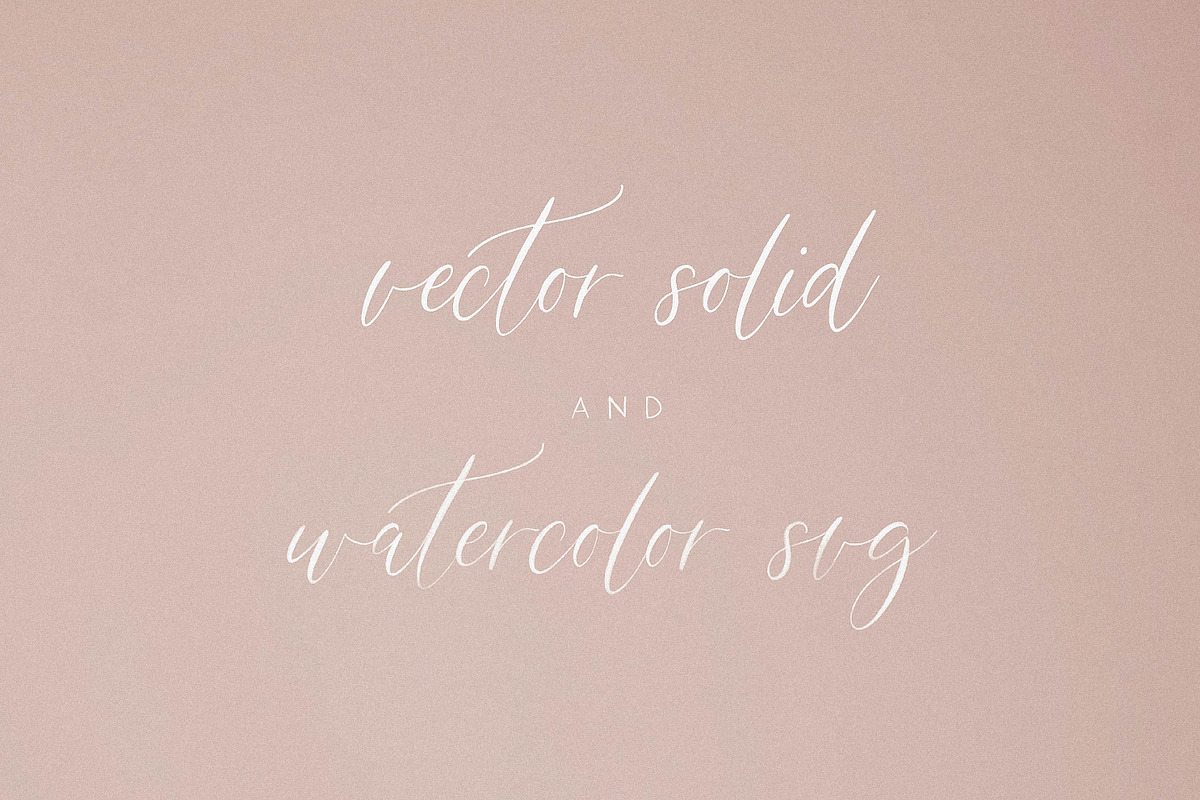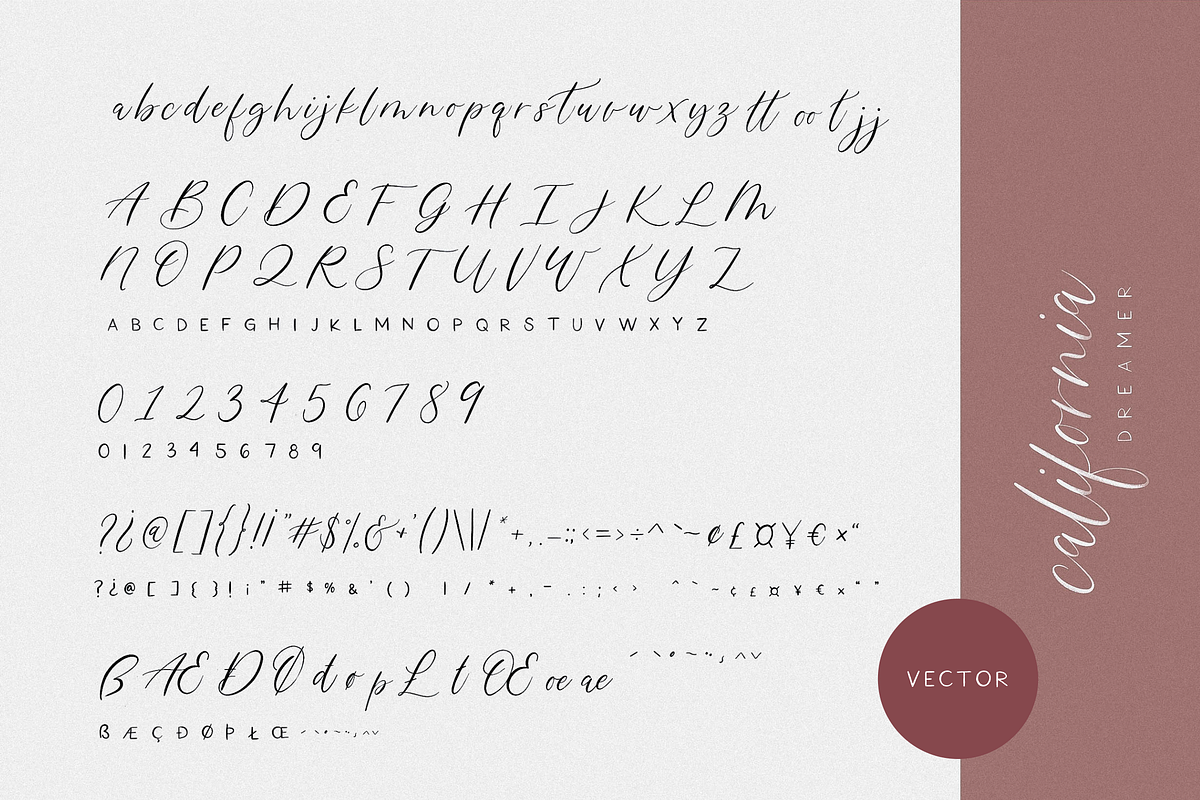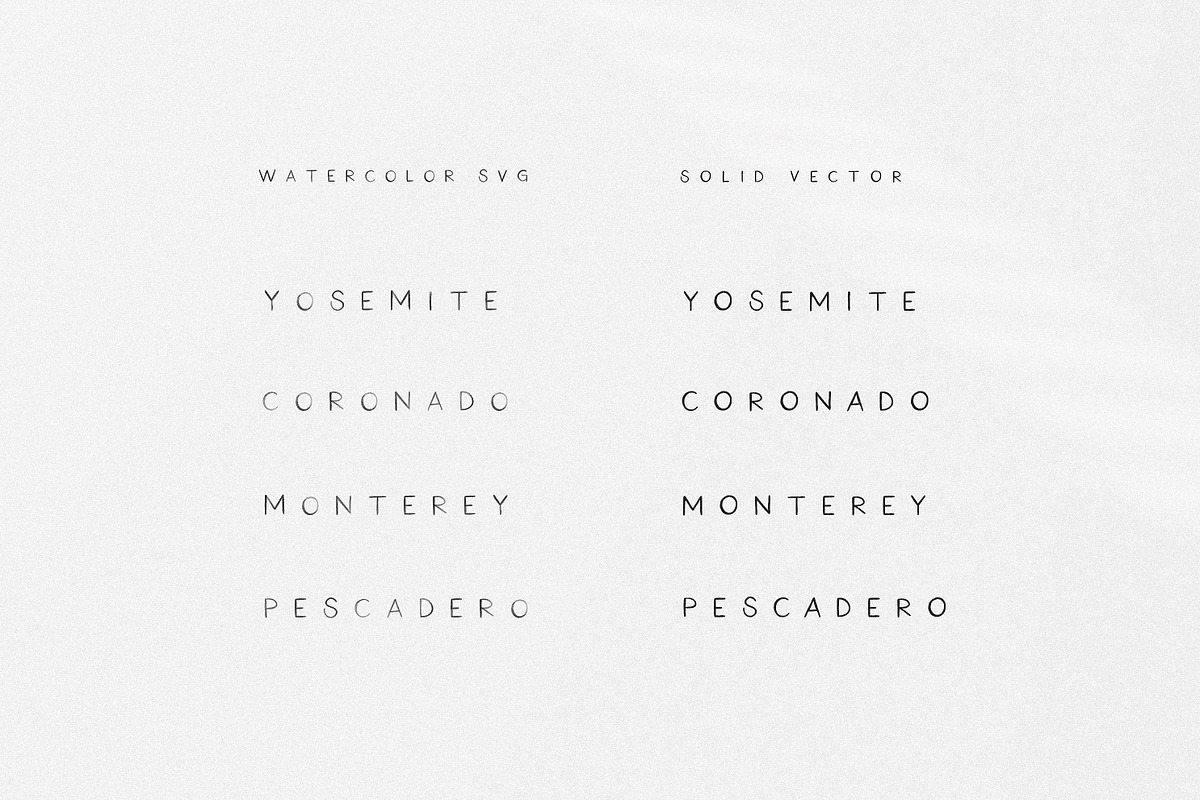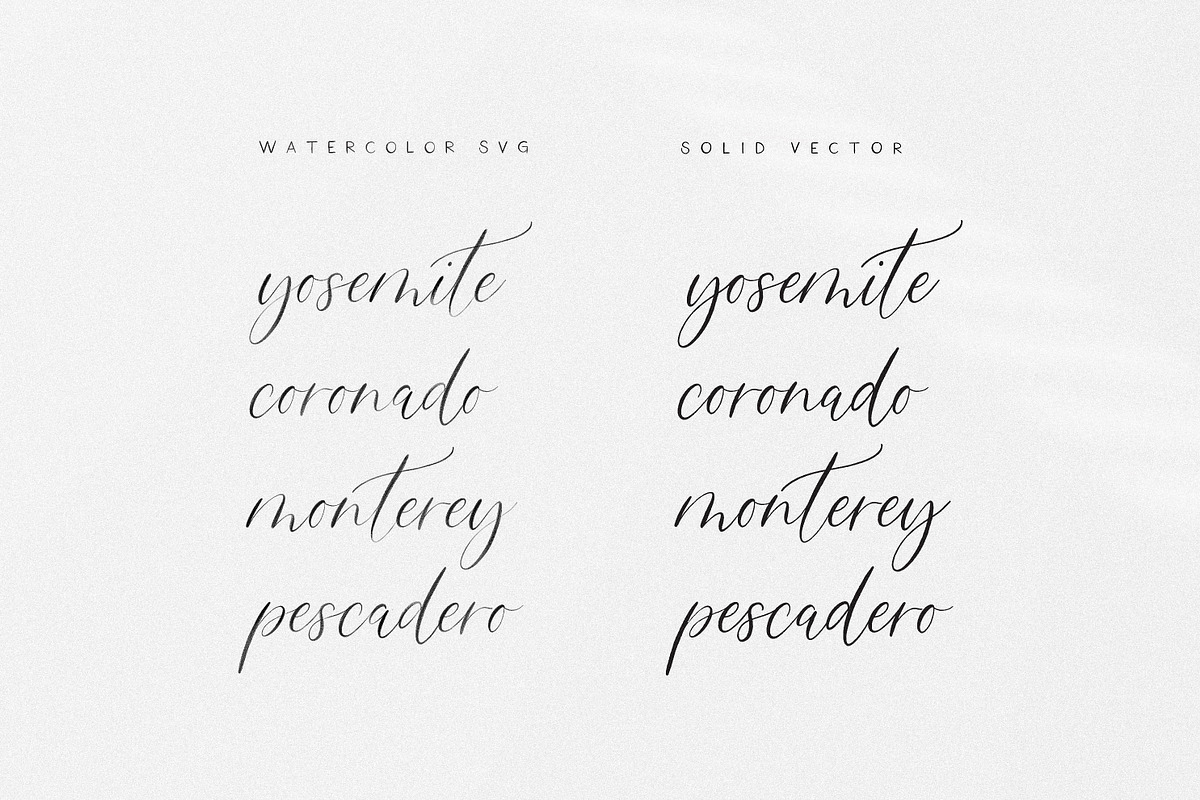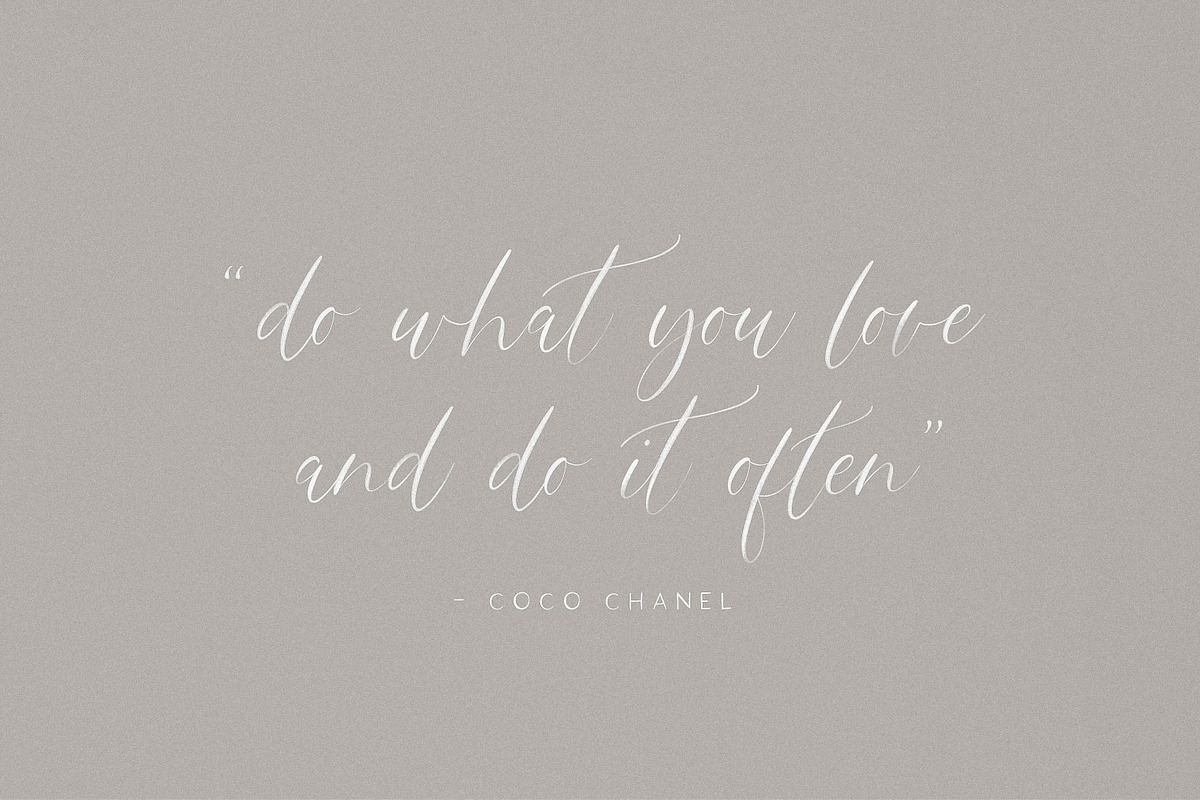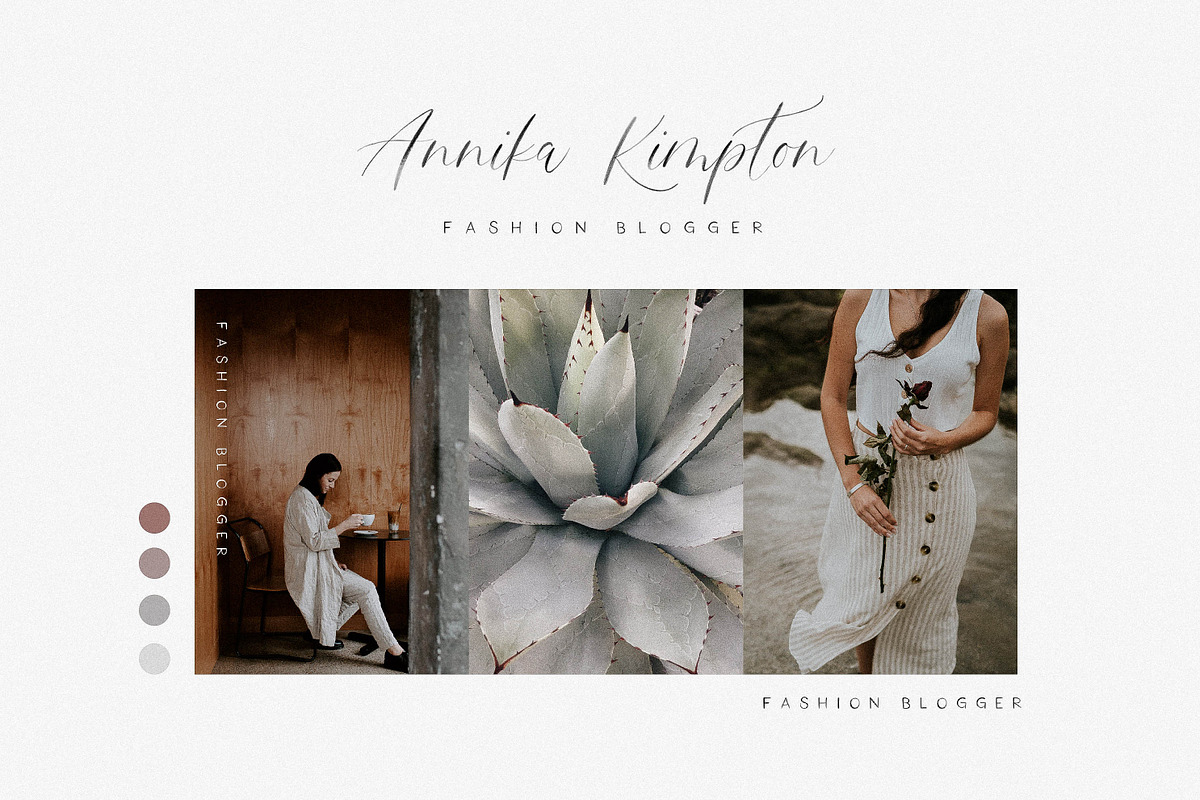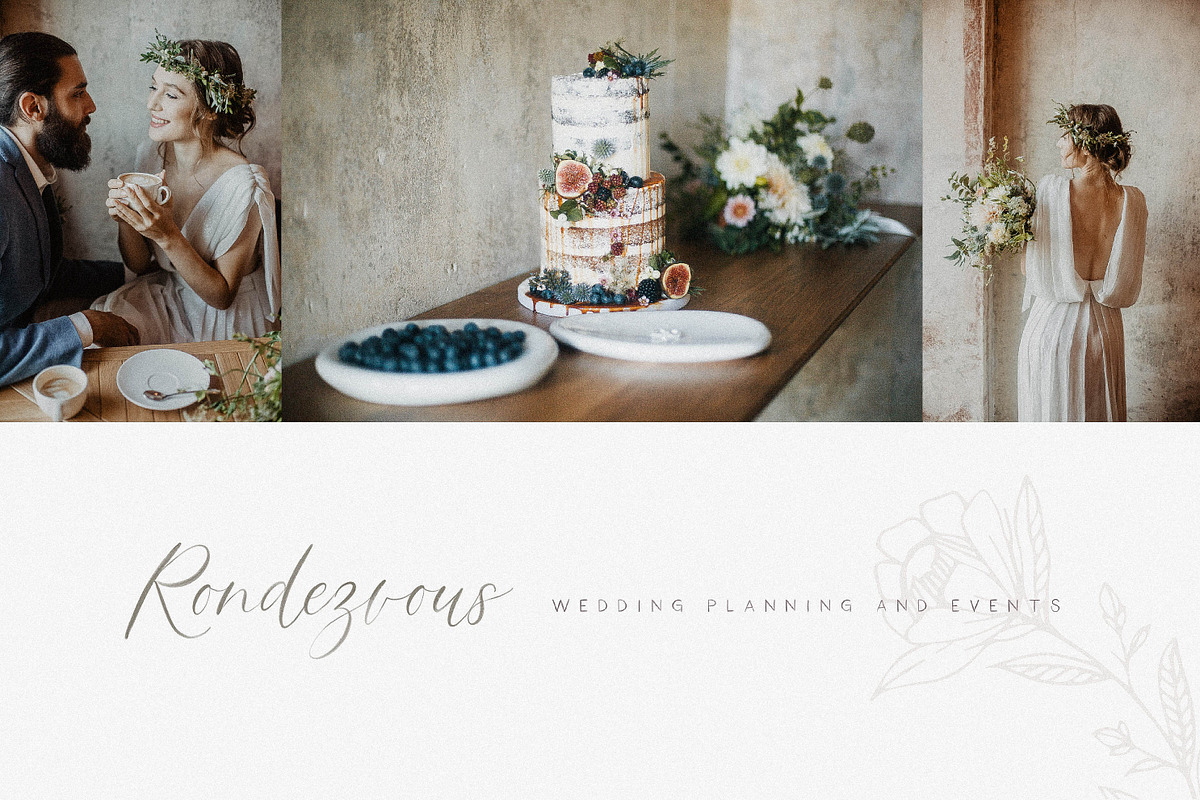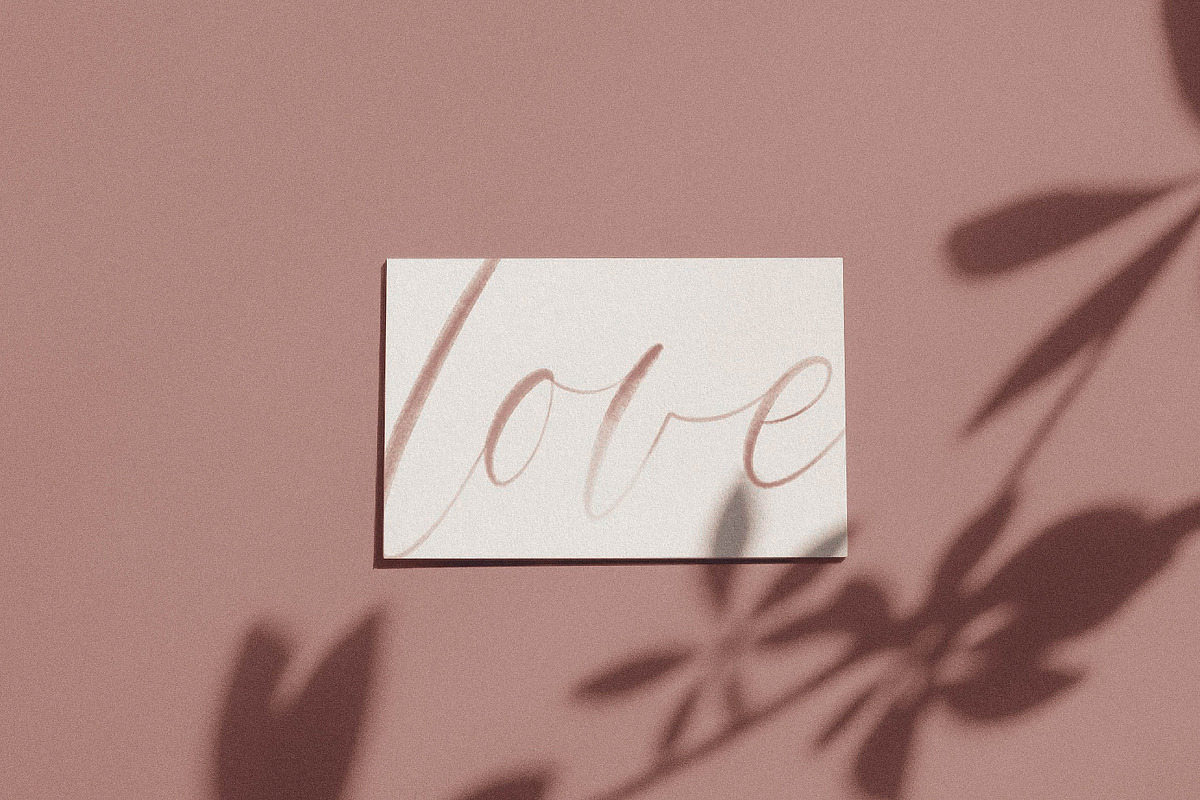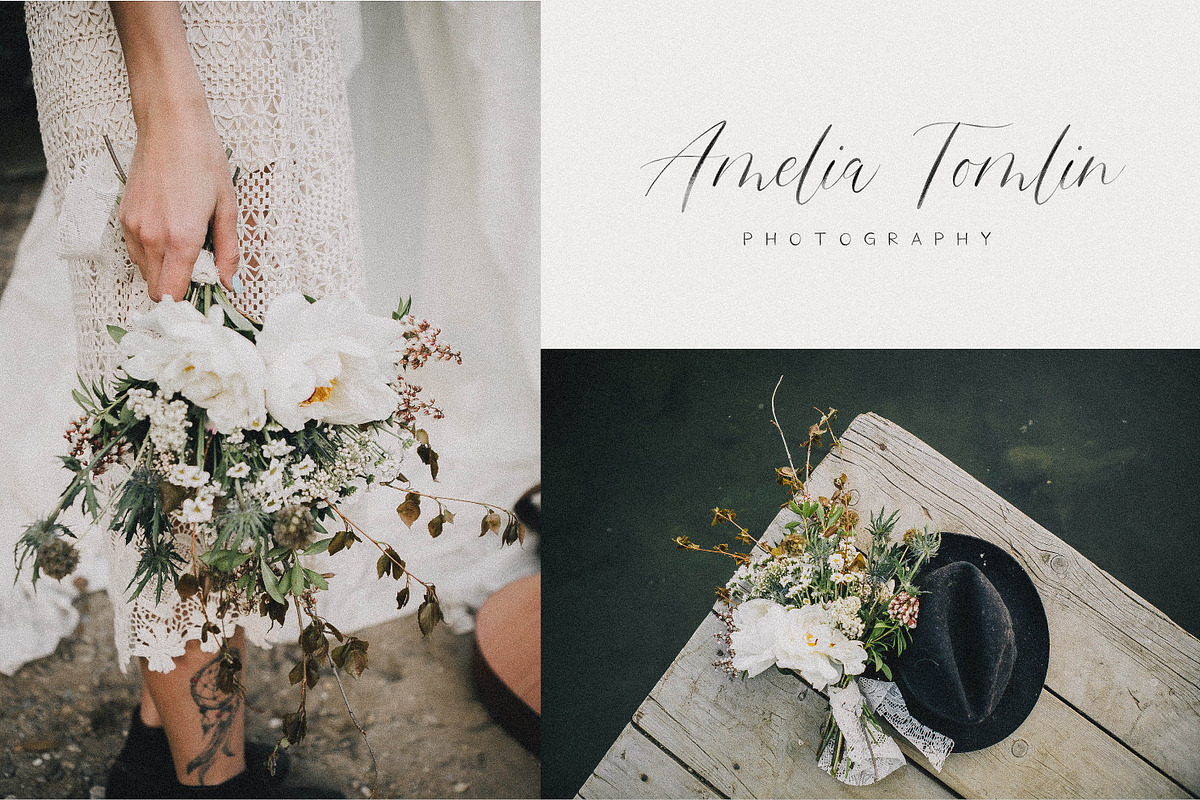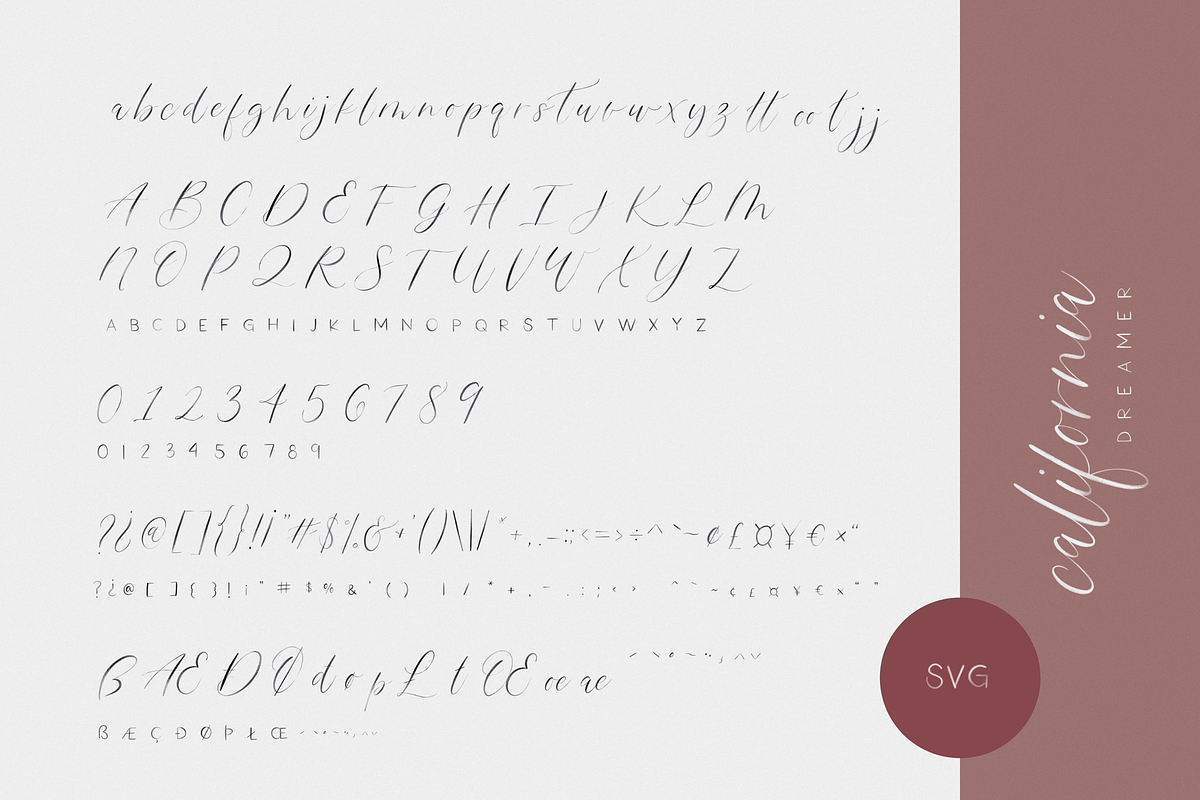
California Dreamer | Font Duo + SVG
Introducing the new and tasteful California Dreamer Font Duo (SVG + Solid)! A luxe addition to any design, the California Dreamer Font Duo features a refined, sophisticated script font and a sans-serif font. The SVG (Watercolor) versions of these fonts feature a semi-transparent watercolor texture, perfect for adding a stunning, hand-painted look to all your work.
California Dreamer Script + Sans (Solid): A beautiful vector font combo with rough edges to maintain the hand-written look. These fonts were created in the traditional vector format, and can be used in most software programs. These fonts come in the TTF, OTF and WOFF format.